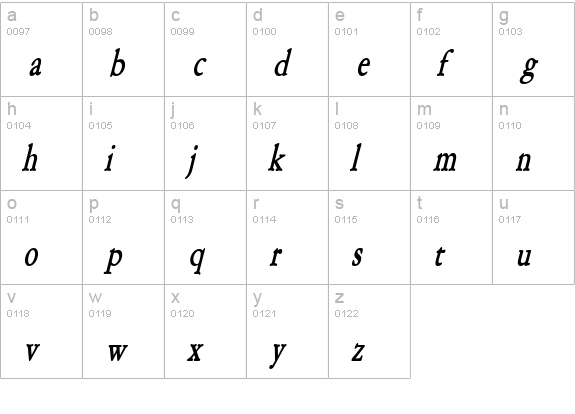
Amery Condensed BoldItalic Font Details
Amery Condensed BoldItalic is a distinctive, condensed-width variant in the Amery typeface family \xE2\x80\x94 well suited to design and typography projects.
Amery Condensed BoldItalic font is a striking and dynamic typeface designed to make a bold statement. Its condensed and italicized design exudes a sense of elegance and sophistication, making it perfect for a wide range of design projects. The strong and expressive letterforms of this font are ideal for creating eye-catching headlines, posters, and branding materials. What's even better is that this stunning font is available for free download at FontsMarket.com. Whether you're a designer looking to add a touch of flair to your projects or a business owner in need of a standout font for your marketing materials, Amery Condensed BoldItalic font is sure to elevate your designs to the next level. Don't miss out on this fantastic opportunity to enhance your creative projects with this exceptional font. Download it now and let your creativity shine!